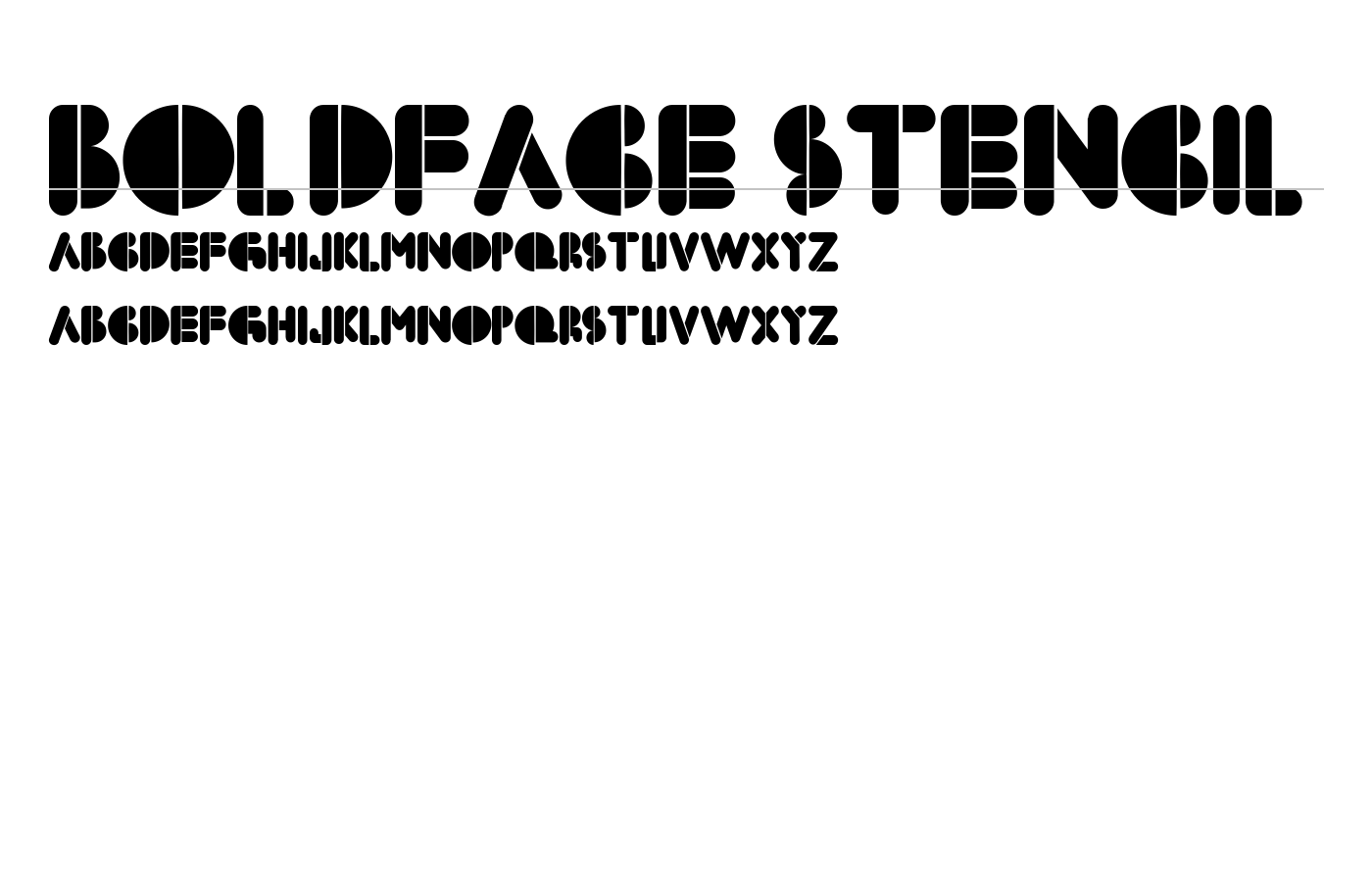
BoldFace Stencil is a striking, bold sans serif font with a strong geometric structure and a distinctive stencil style that creates dramatic breaks within the letters. Its heavy weight and tight spacing give it a powerful, modern feel, making it ideal for impactful headlines, logos, and branding that demands attention. This font’s unique stencil design lends a contemporary, industrial edge perfect for creative projects that want to stand out with a bold, graphic look.
BoldFace Stencil Font